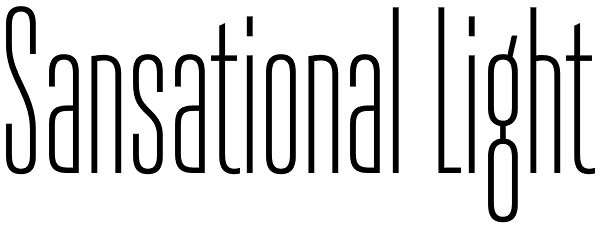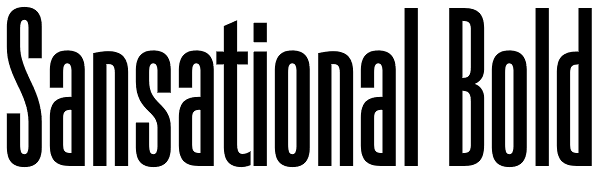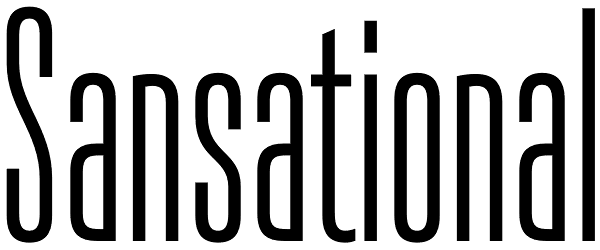
Sansational
"Sansational" is an original design by Alex Kaczun. The inspiration started with the shape of a "paper clip". Simple and elegant. A condensed sans serif that's, well... just sansational! It's a delight to use and view. Great for advertising, large...